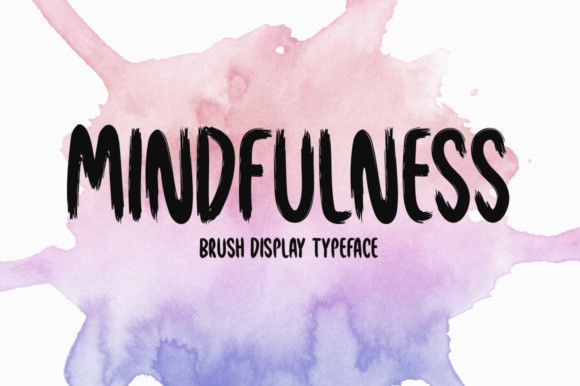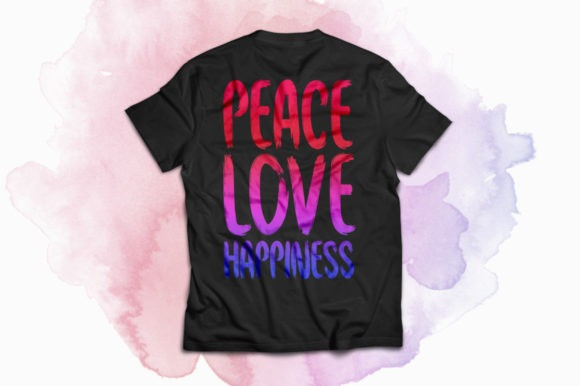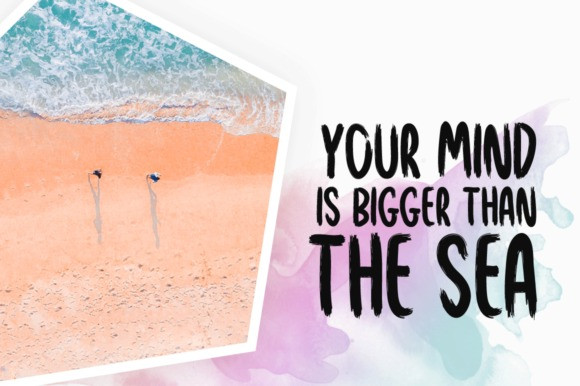
Mindfulness Font
Mindfulness is a brand new, brushed display font. Mindfulness is perfectly suited for stationery, logos, t-shirt, paper, print design, website header, photo frame, flyer, music cover, poster, image slider, and much more.